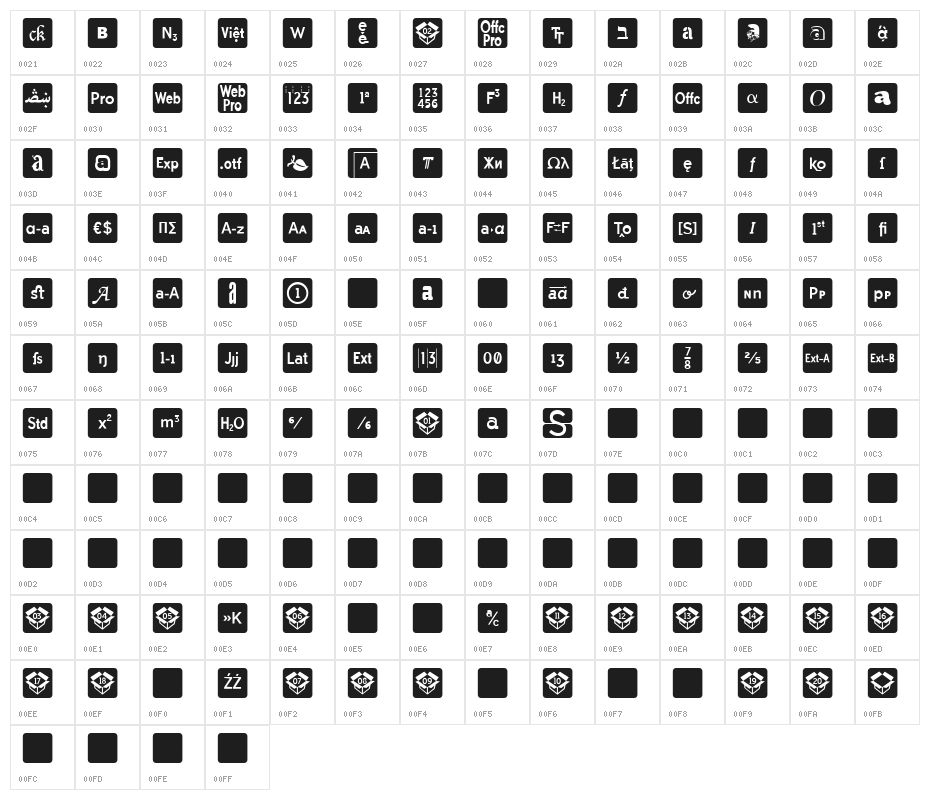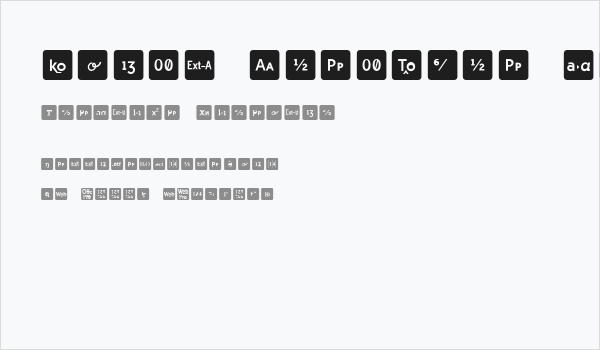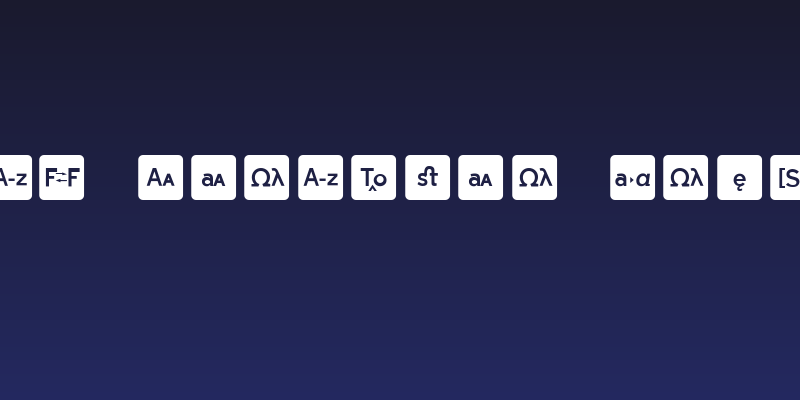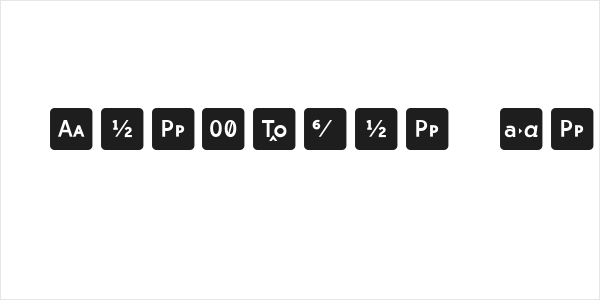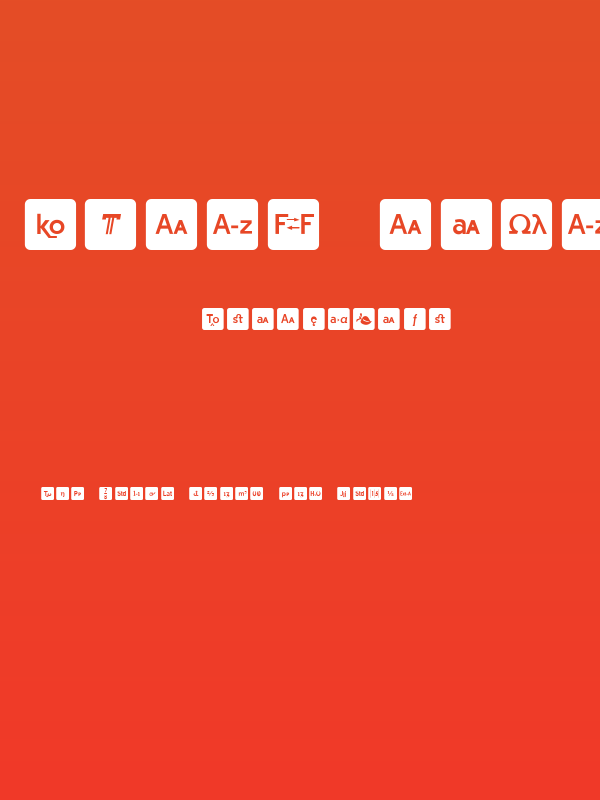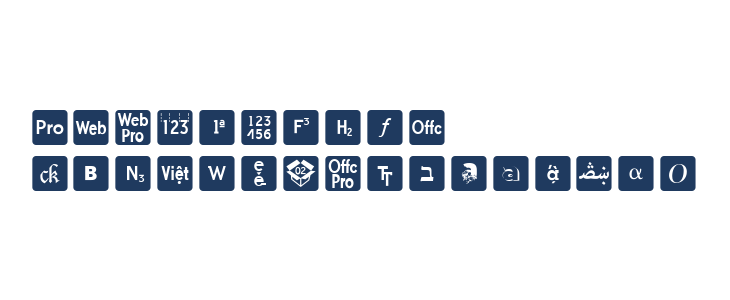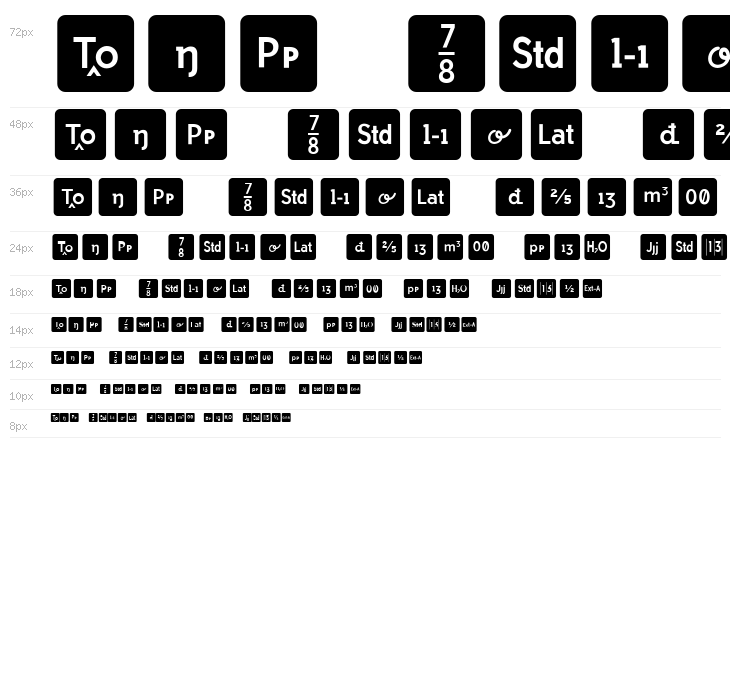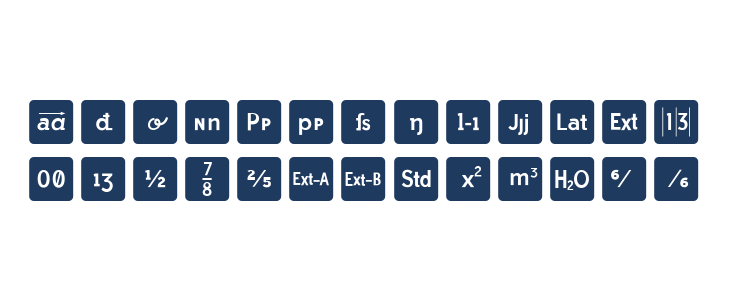
Icons OpenType Regular Font
Icons OpenType Regular Description
This collection of icons and symbols is designed to enhance typographic projects with a diverse range of characters. It includes a variety of mathematical symbols, fractions, and special characters, as well as unique typographic elements like ligatures and stylistic alternates. The icons are presented in a bold, clear style, making them suitable for both digital and print media. The set features a mix of uppercase and lowercase letters, numerals, and special symbols, each enclosed in a square, providing a uniform and cohesive look. This design is particularly useful for educational materials, technical documents, and creative projects that require a distinctive and professional appearance.
| Use Case | Logos, Headlines, Digital Interfaces |
| Proposed Projects | Ideal for educational materials, technical documents, creative design projects, and digital interfaces. |